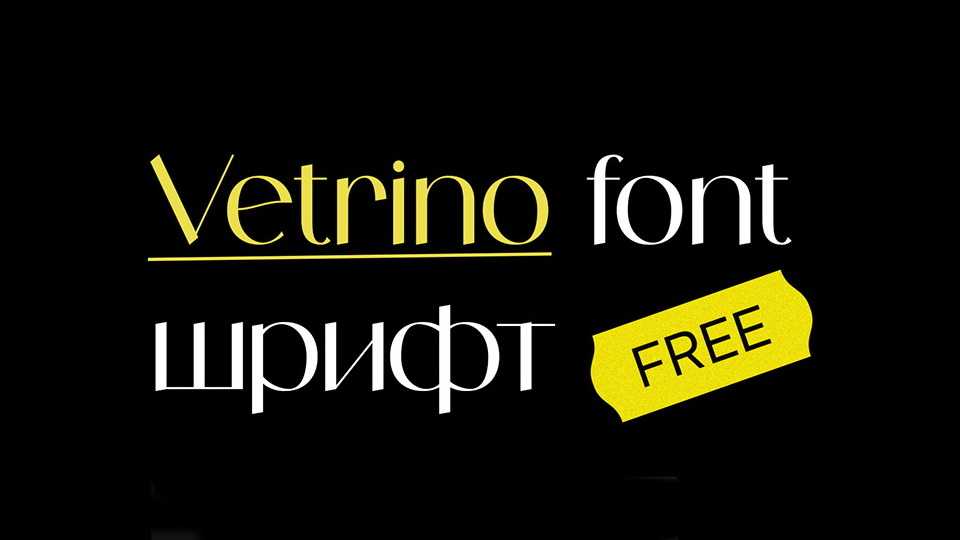
Download Vetrino font, a modern sans serif typeface. The soft contrast and hard lines of Vetrino letters will easily fit on your site as a headline and subheading. The soft contrast in thickness gives the letters a historical feel.